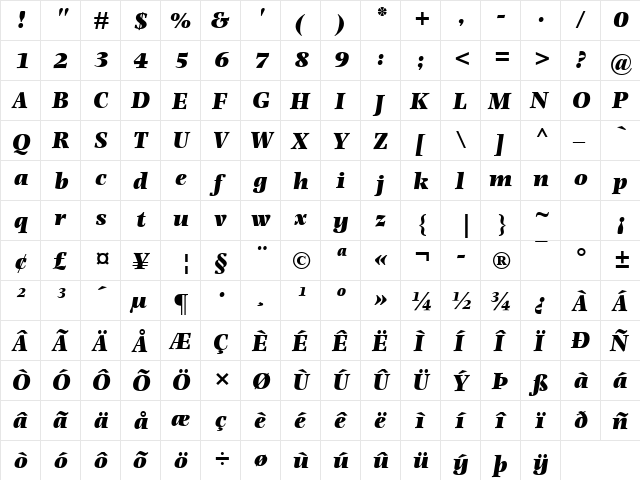
Photina MT Ultra Bold Italic Font Preview
Photina MT Ultra Bold Italic
Photina MT Ultra Bold Italic Font Details
Design Context for Photina MT Ultra Bold Typeface
Photina MT Ultra Bold is a composed and adaptable typeface that performs quietly and consistently across a wide range of design contexts. The dynamic lean of this cut emphasises speed and emphasis in any layout. Its bold stroke weight gives it real presence on the page.
Pro Tip: Use Photina MT Ultra Bold for emphasis, pull quotes, and subheadings where its slanted energy can add rhythm to the layout.